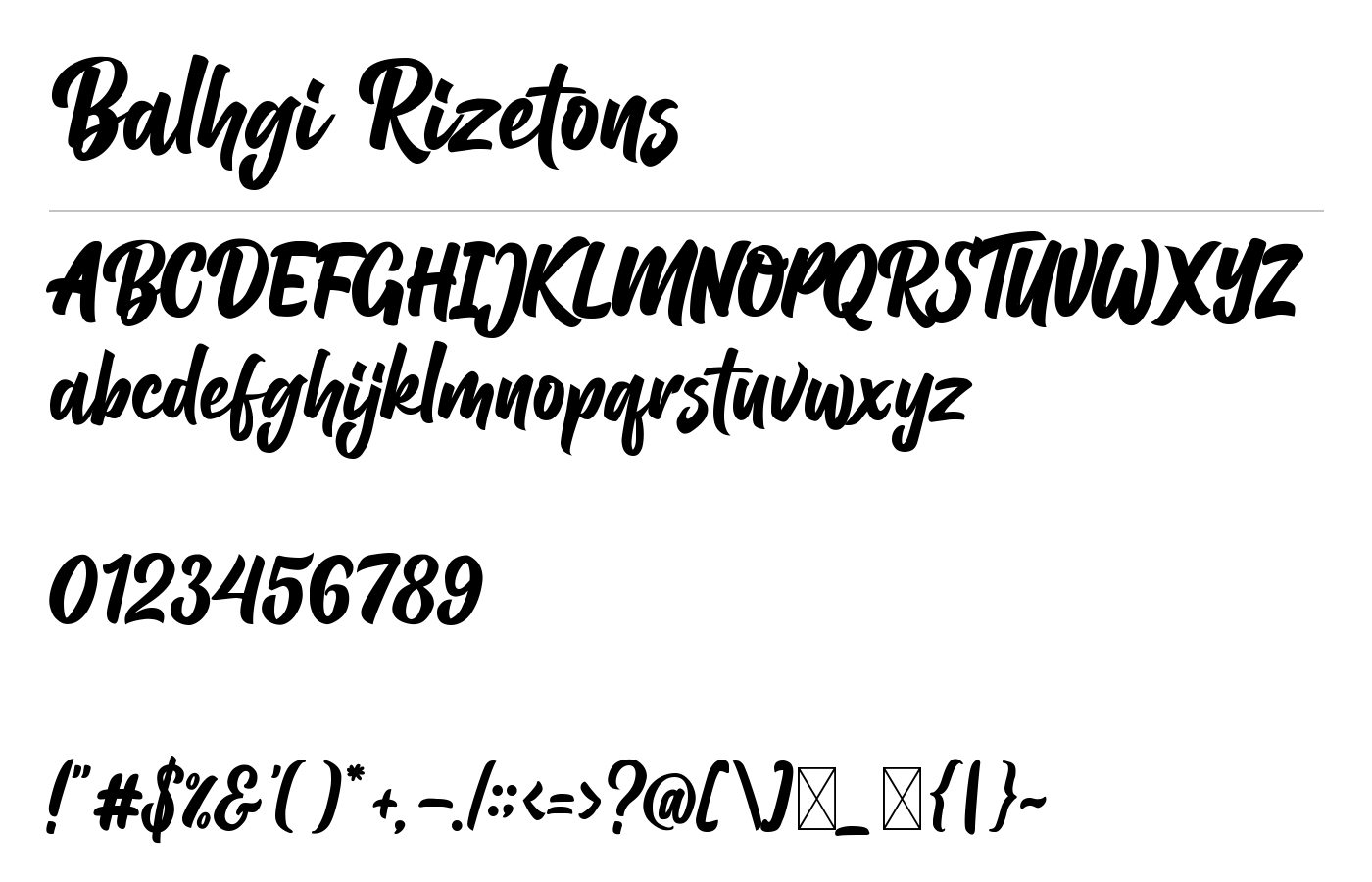
Balhgi Rizetons is a bold, brush-script font with a lively and energetic personality. Its thick, smooth strokes and slightly slanted letterforms give it a dynamic, hand-painted look, making it ideal for fun and informal branding, packaging, and eye-catching headlines. This font works well where a playful yet confident vibe is needed to grab attention.
Balhgi Rizetons Font
About Balhgi Rizetons Font
| Font family | Balhgi Rizetons Font |